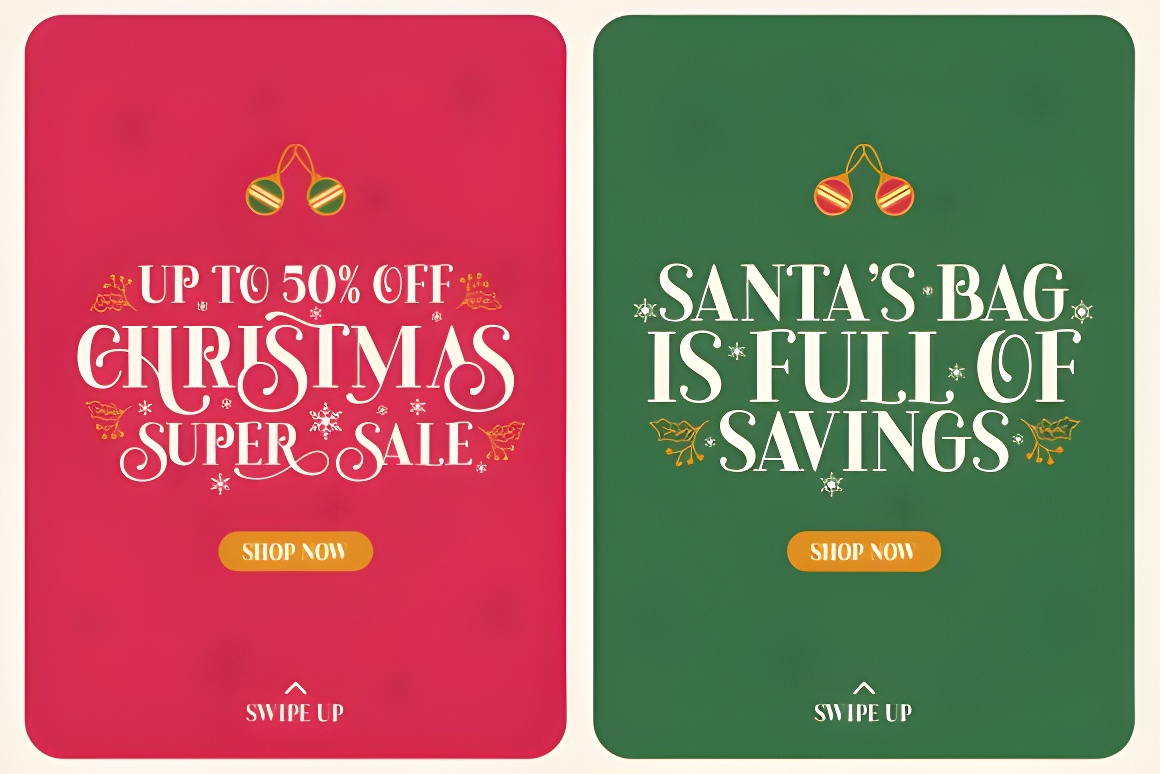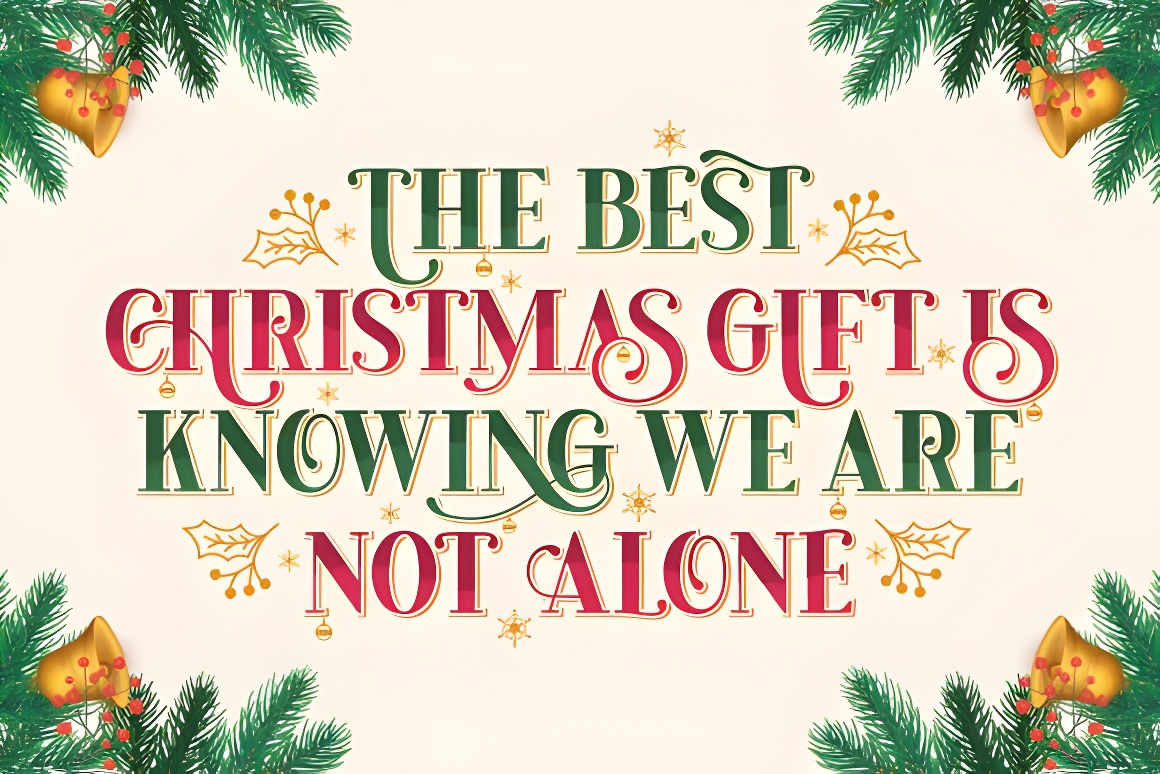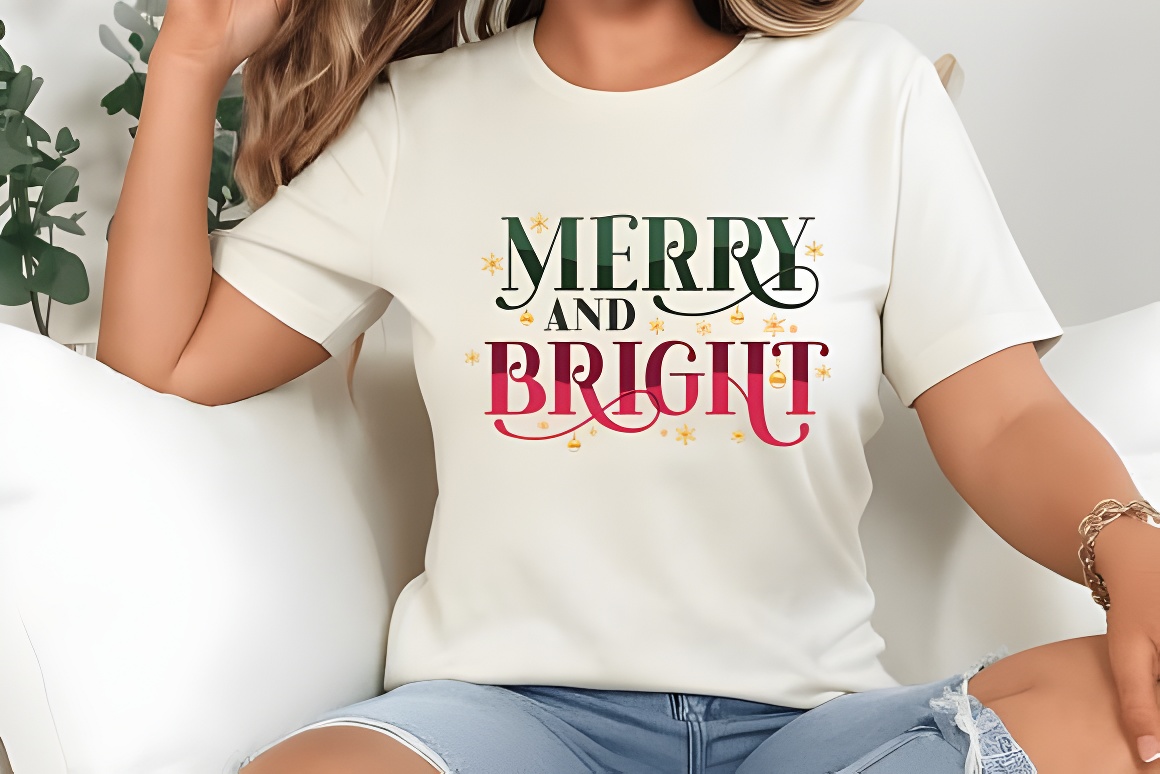
Amour Christmas Font
Amour Christmas is a festive and elegant display serif font designed to add joyful charm to your holiday creations.Featuring whimsical swashes, playful ornaments, and a luxurious serif base, this typeface is perfect for Christmas cards, branding, social media posts, and seasonal packaging. Its unique blend of classic elegance and cheerful flair makes every message feel magical and full of holiday spirit.The Amour Christmas font is also PUA-encoded, ensuring effortless access to all glyphs, swashes, and alternate characters to help you customize your creations with ease.